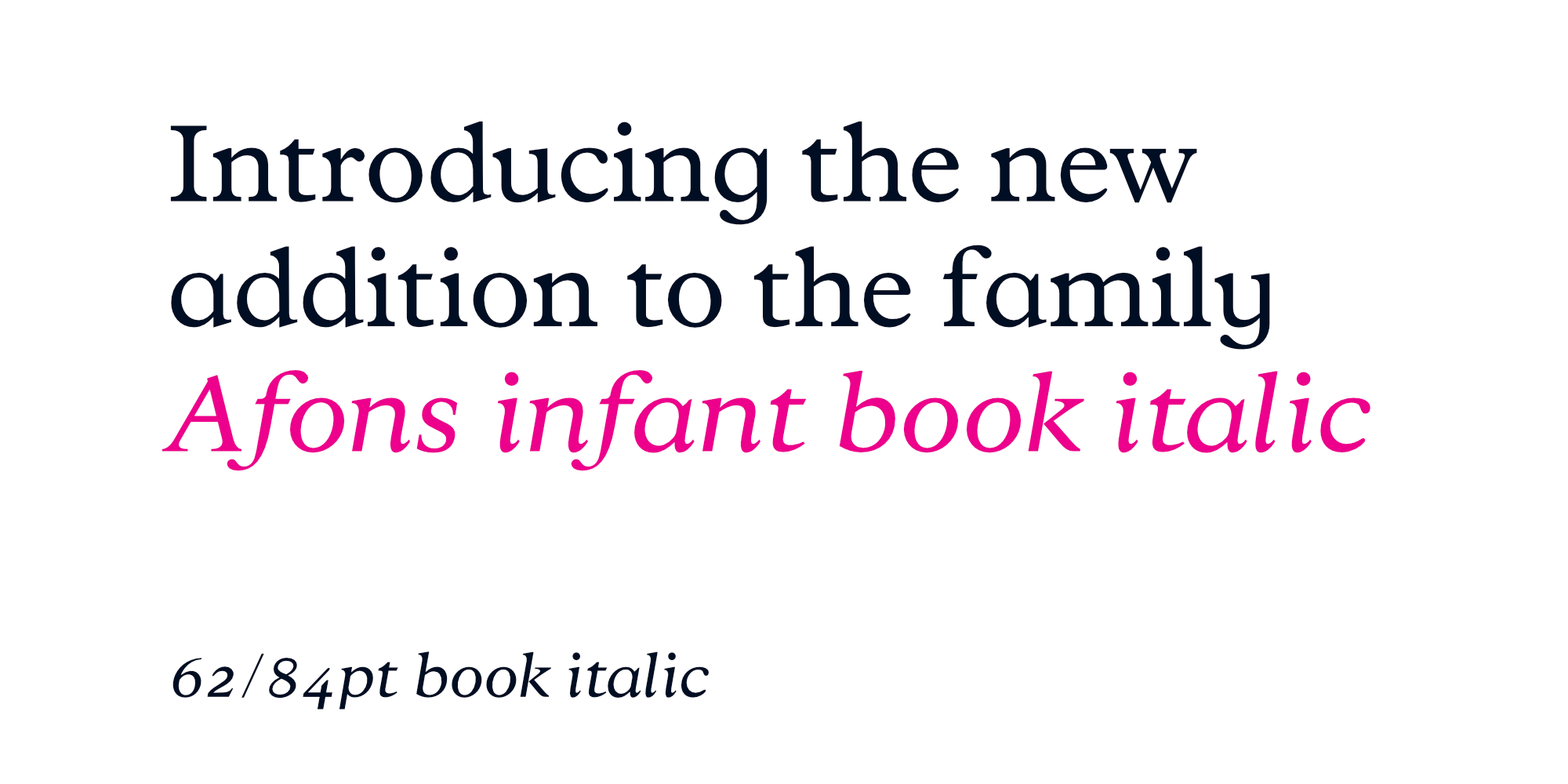
Afons Font is perfect for personal branding projects, boutique fashion logos, elegant signature designs, sophisticated stationery systems, luxury lifestyle branding, artisanal product labels, intimate event invitations, and refined social media graphics. This personally distinctive typeface excels in projects requiring individual character and sophisticated intimacy where personal identity meets contemporary elegance.
What makes Afons Font exciting is its perfect balance of personal character with professional sophistication, creating a typeface that feels both uniquely individual and universally appealing. The font features carefully crafted letterforms with subtle personality traits and balanced proportions that convey authenticity, refinement, and personal attention to detail. Its intimate character makes it ideal for businesses and individuals seeking to establish meaningful personal connections while maintaining professional credibility and sophisticated appeal.
Afons Font family includes multiple weights and personal variations that enhance its individual appeal while providing design flexibility for diverse personal branding applications. The family typically offers thin, light, regular, medium, semibold, and bold weights, along with elegant italic versions and personalized alternates that complement individual and boutique design themes perfectly.
Whether you're developing personal brand identity, creating boutique business materials, or designing intimate luxury experiences, Afons Font Free Download provides the perfect personal solution for projects requiring individual character and sophisticated elegance. This font's personal charm and refined aesthetics make it essential for entrepreneurs and artisans who value authentic personal connection and quality craftsmanship.
The thoughtfully crafted letterforms and personal proportions of Afons Font create immediate emotional connections that feel both professional and personally meaningful while maintaining excellent readability across all applications. Its distinctive individual personality and sophisticated charm make it an invaluable tool for designers working with personal brands, boutique businesses, and luxury lifestyle services. Download Afons Font today and add personal sophistication to your creative projects with this elegantly individual typeface that perfectly captures the essence of personal branding and intimate professional elegance.